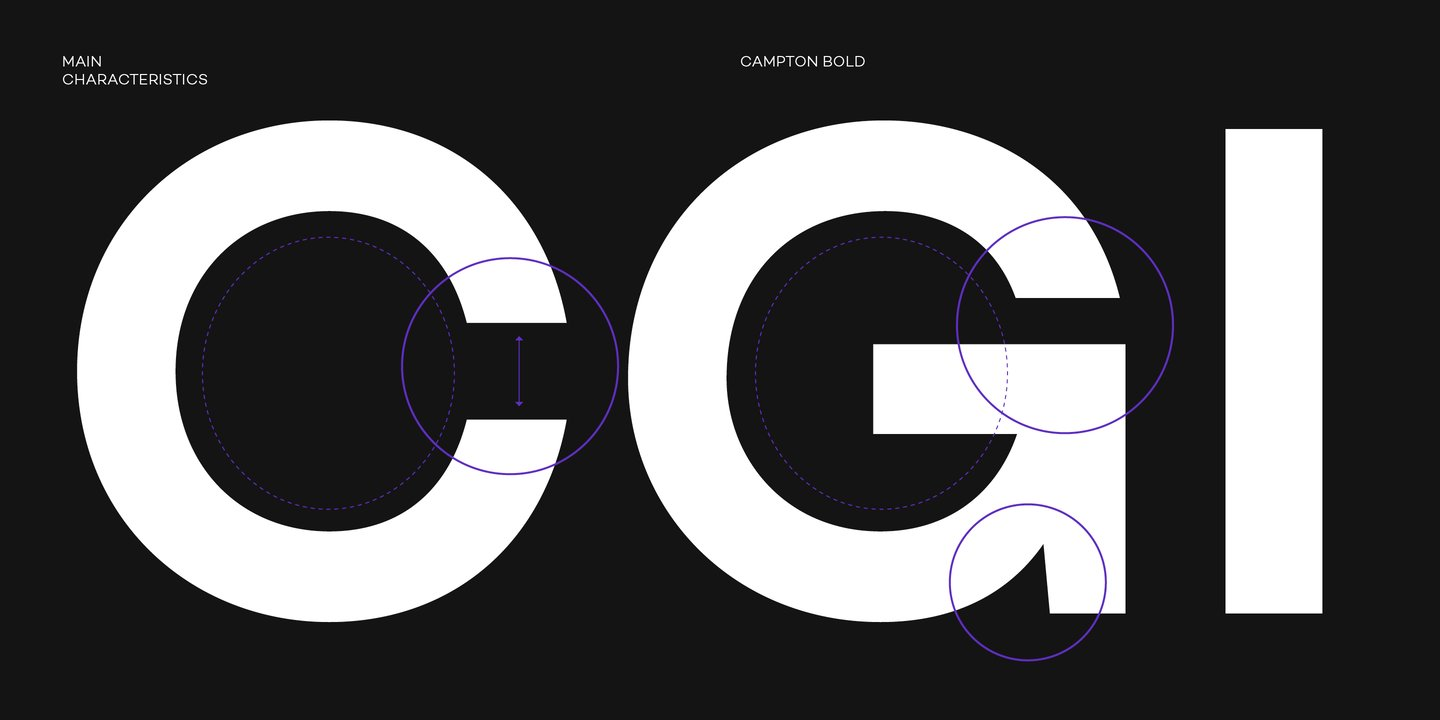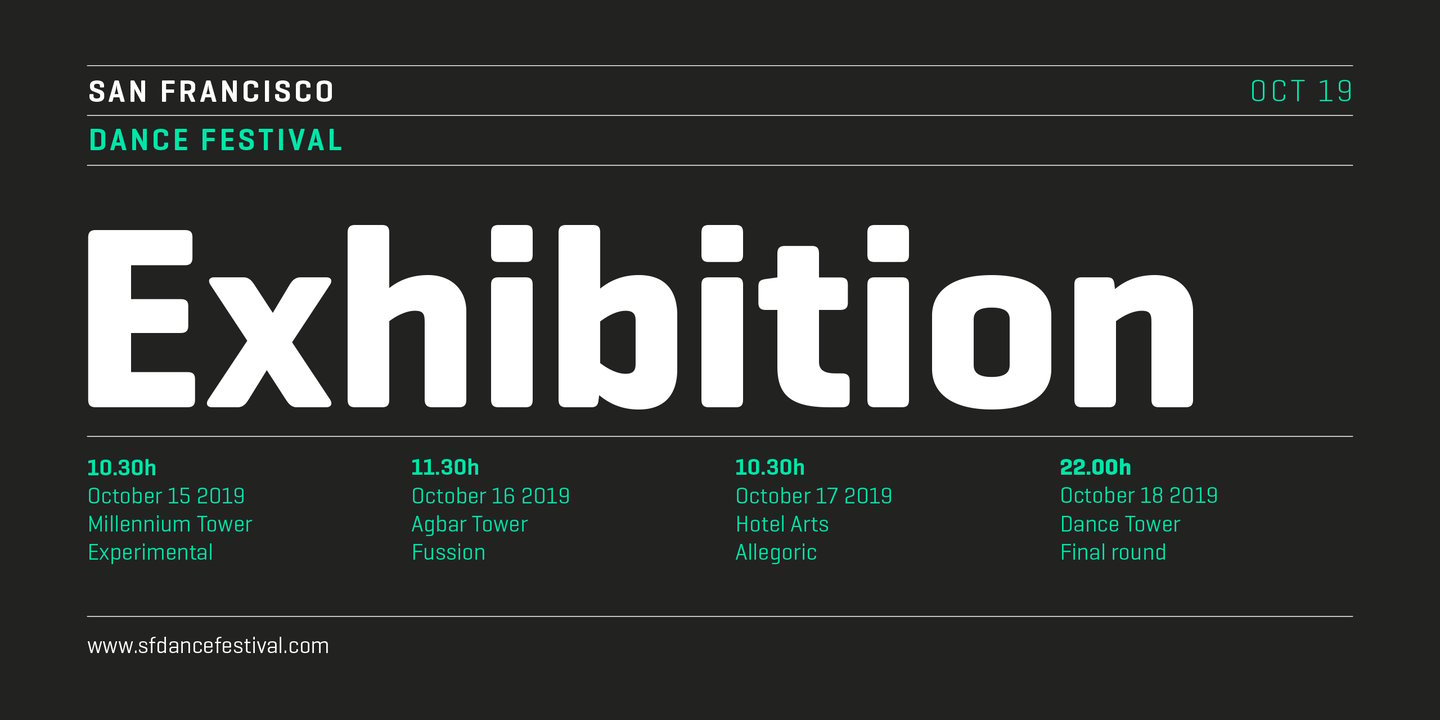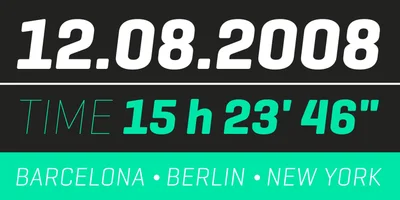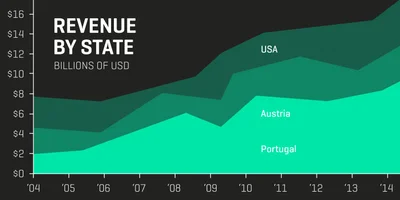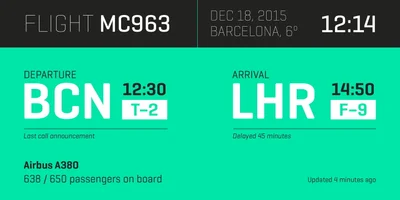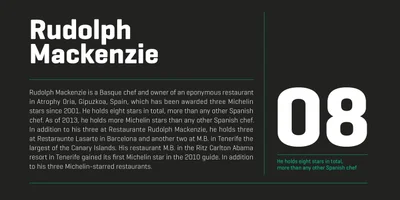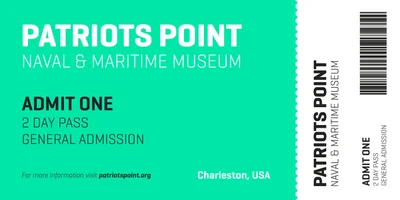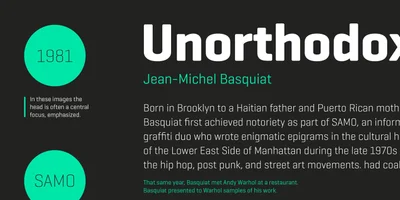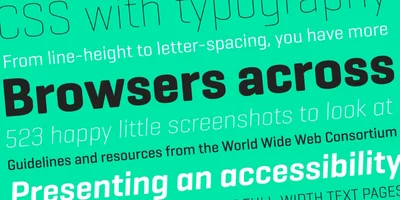
Campton vs Geogrotesque
Campton and Geogrotesque are both sans-serif typefaces sharing a geometric foundation. Where Campton leans editorial, minimal, Geogrotesque brings rounded. Compare which suits your Editorial project.
Design overlap:33%
Campton
Geogrotesque
Campton
Geogrotesque
| Feature | Campton | Geogrotesque |
| Source | Rene Bieder | Emtype |
Recommended: Campton
- editorial, minimal design character
- Suited for Corporate and Packaging
- From rene-bieder
Consider: Geogrotesque
- rounded design character
- From emtype